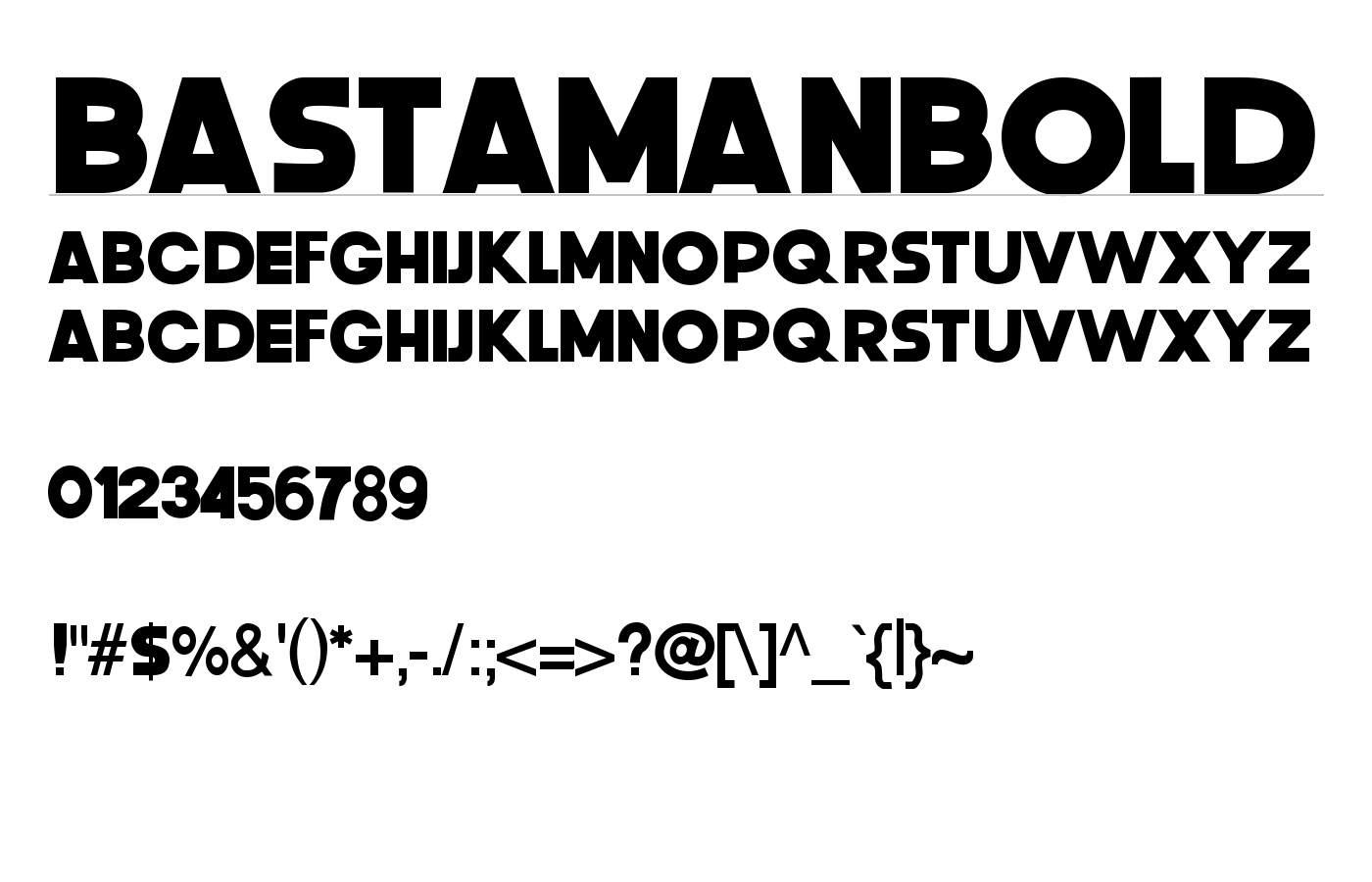
BastamanBold is a strong, bold sans serif font with a clean and modern feel, featuring wide proportions and smooth, geometric shapes. Its high weight and uniform stroke width make it ideal for impactful headlines, logos, and branding where clarity and confidence are key. This font works well in design projects that need a bold statement with a friendly yet professional tone.
BastamanBold Font